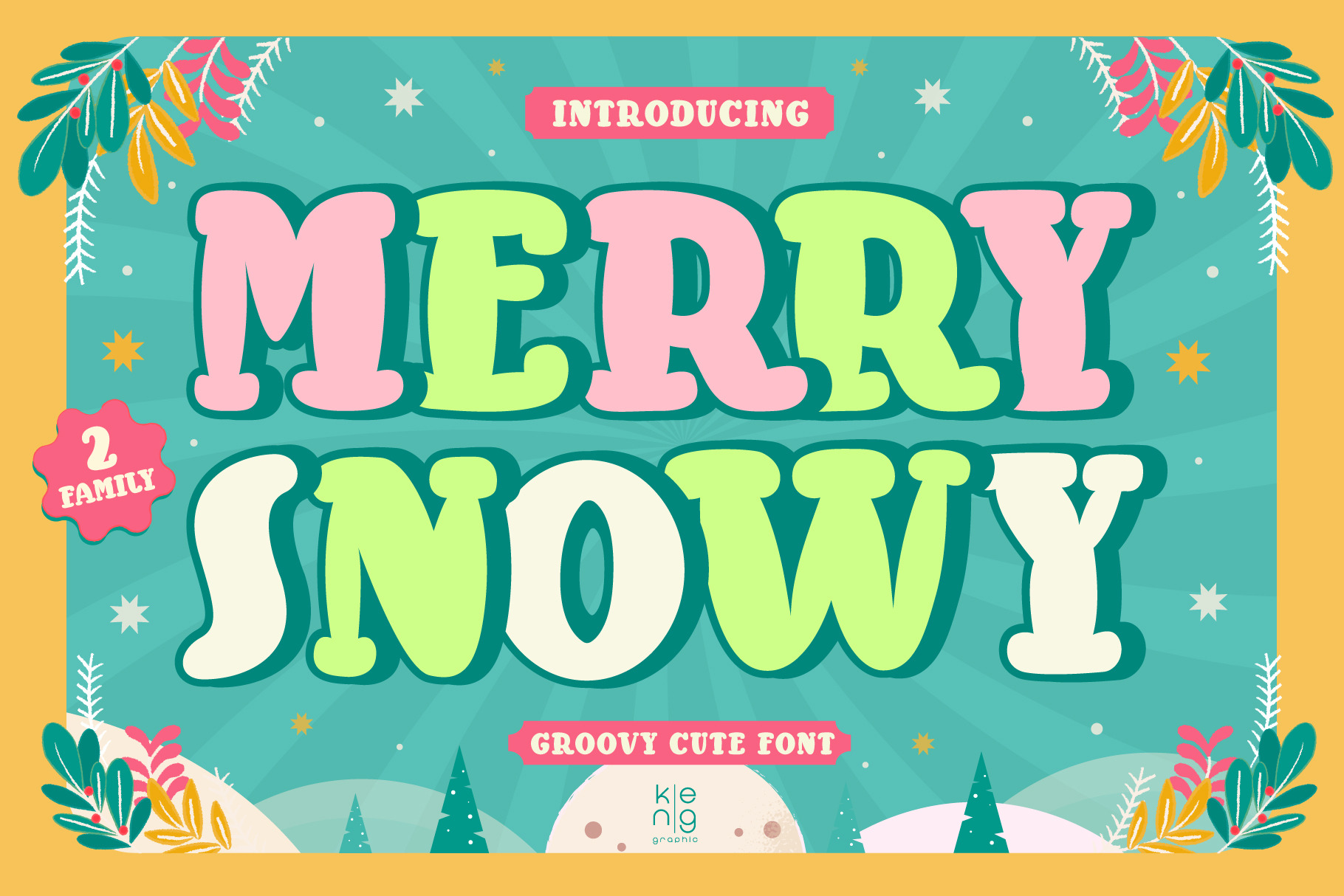
Merry Snowy Font
Merry Snowy is a groovy style display font with a great punch. Everything written in this font will be instantly recognizable and will attract attention. It will work great for comic books, online games, cards, love shirts, posters, movie titles, eye-catching social media posts, or anything that requires youthfulness and courage.